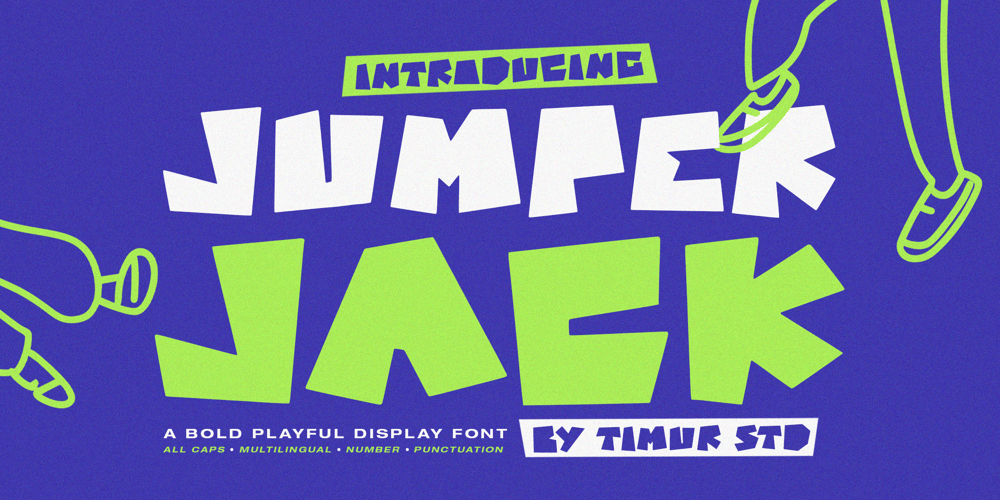
Jumper Jack
Jumper Jack font
Jumper Jack Font Family was designed by Wara Sigit Tri Pamungkas and published by Timurtype. Jumper Jack contains 1 styles and family package options. Introduced by Timurtype Studio!Jumper Jack is a Bold Playful Display FontThis font is a bold and playful display font that exudes energy and charm. With its quirky, dynamic letterforms and lively character, it’s perfect for eye-catching designs, including posters, logos, packaging, and children’s projects. Jumper Jack adds a fun and energetic vibe to any creative work.Jumper Jack also supports multilingualismEnhance your designs with our original fonts, feel free to comment or provide feedback, Enjoy the fonts 😊Thank You